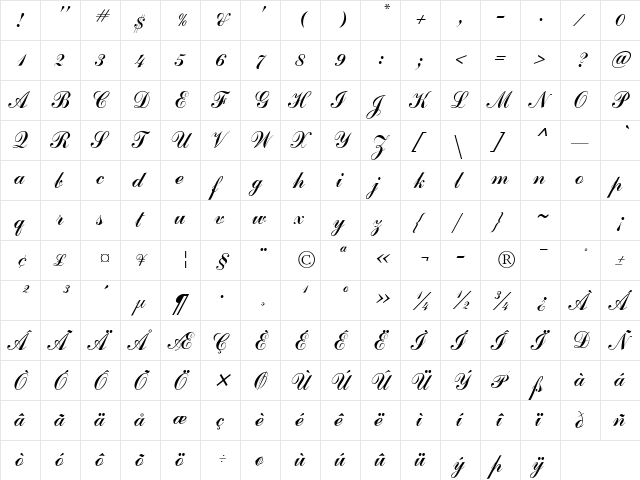
CommScript Italic
Design Context for CommScript Typeface
CommScript flows with the natural rhythm of handwritten lettering, making it ideal for designs that call for warmth and personal expression.
Font Pairing: Combine CommScript with a simple geometric sans for maximum contrast — the tension between flowing curves and clean structure is a classic typographic pairing.
Pro Tip: Use CommScript for short runs of text — names, titles, or taglines. Extended body copy in script faces tires the eye quickly.